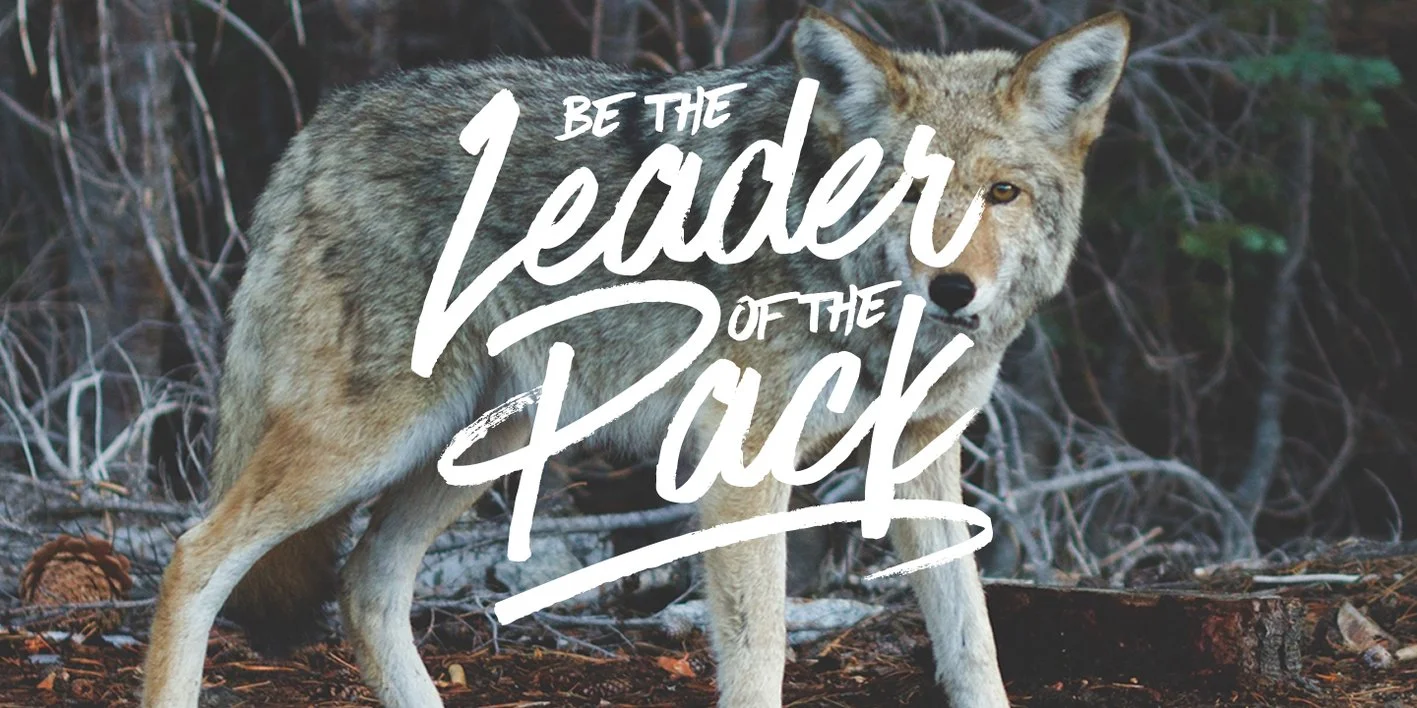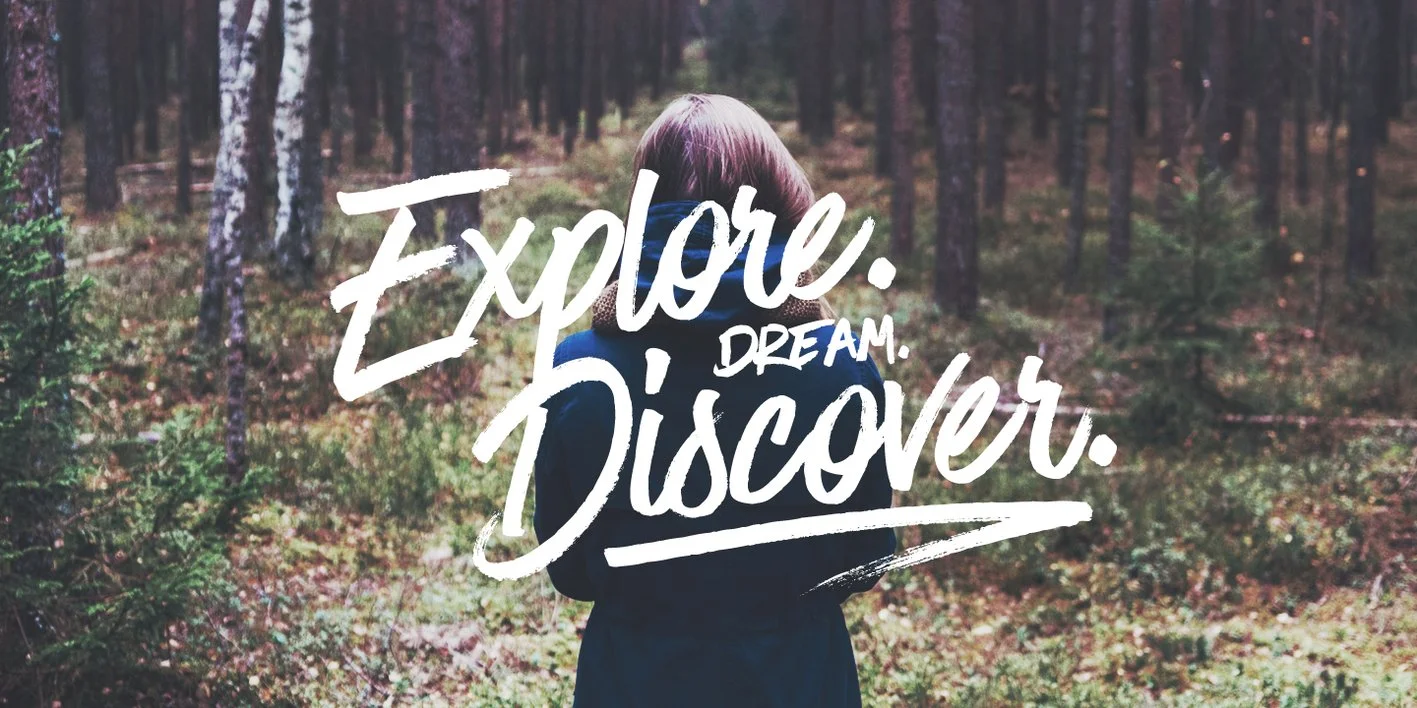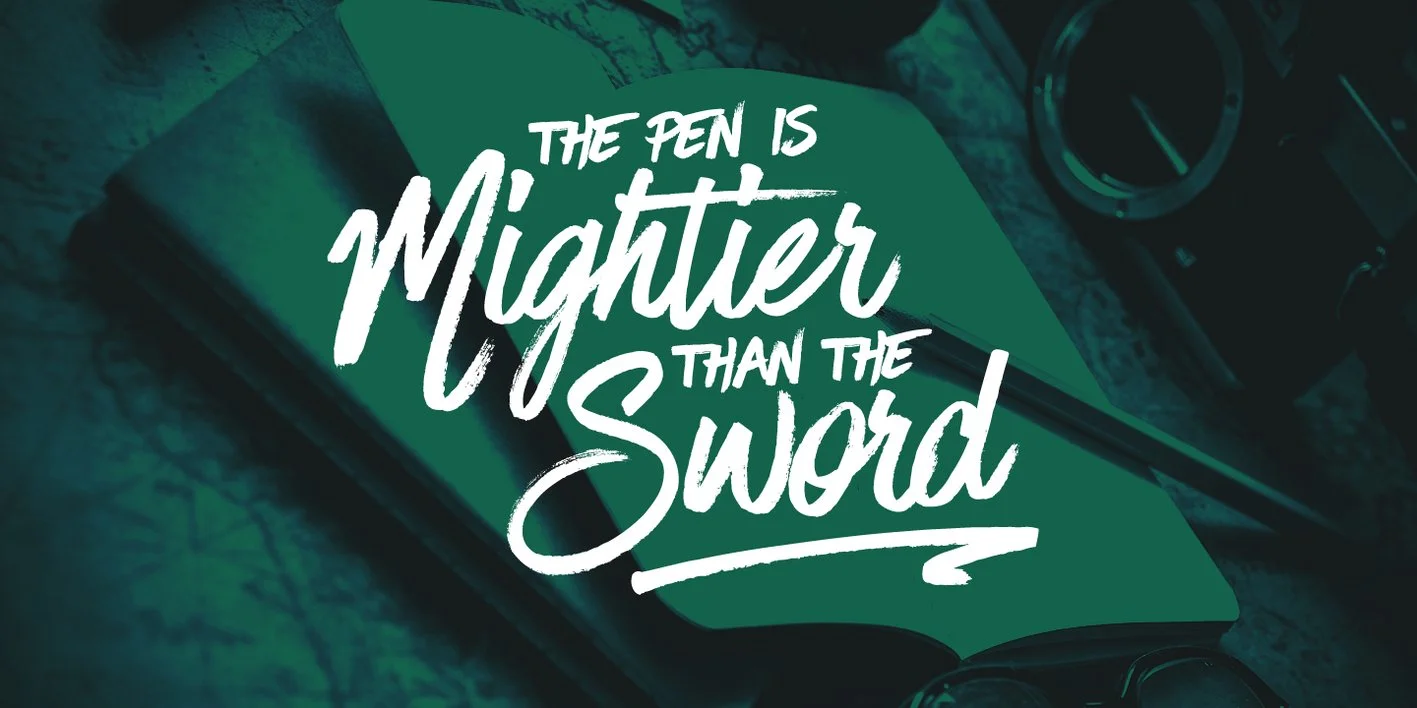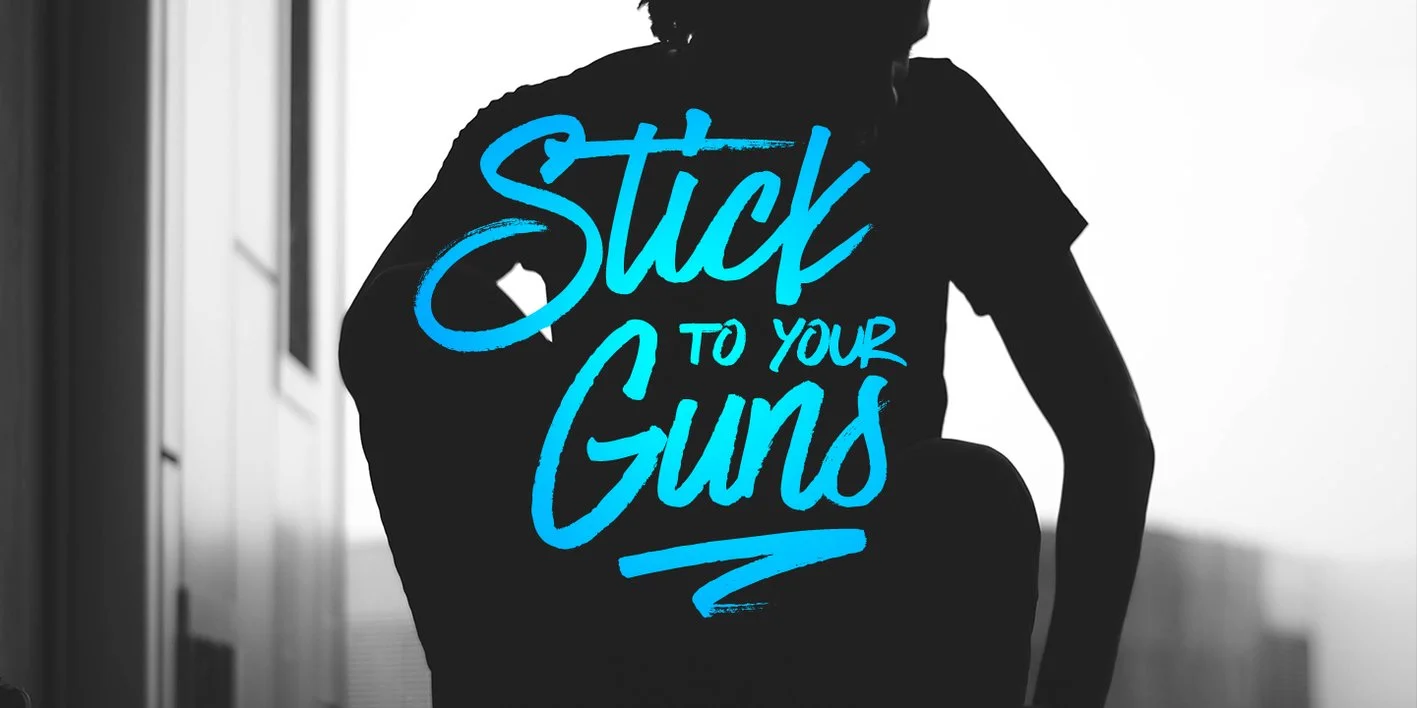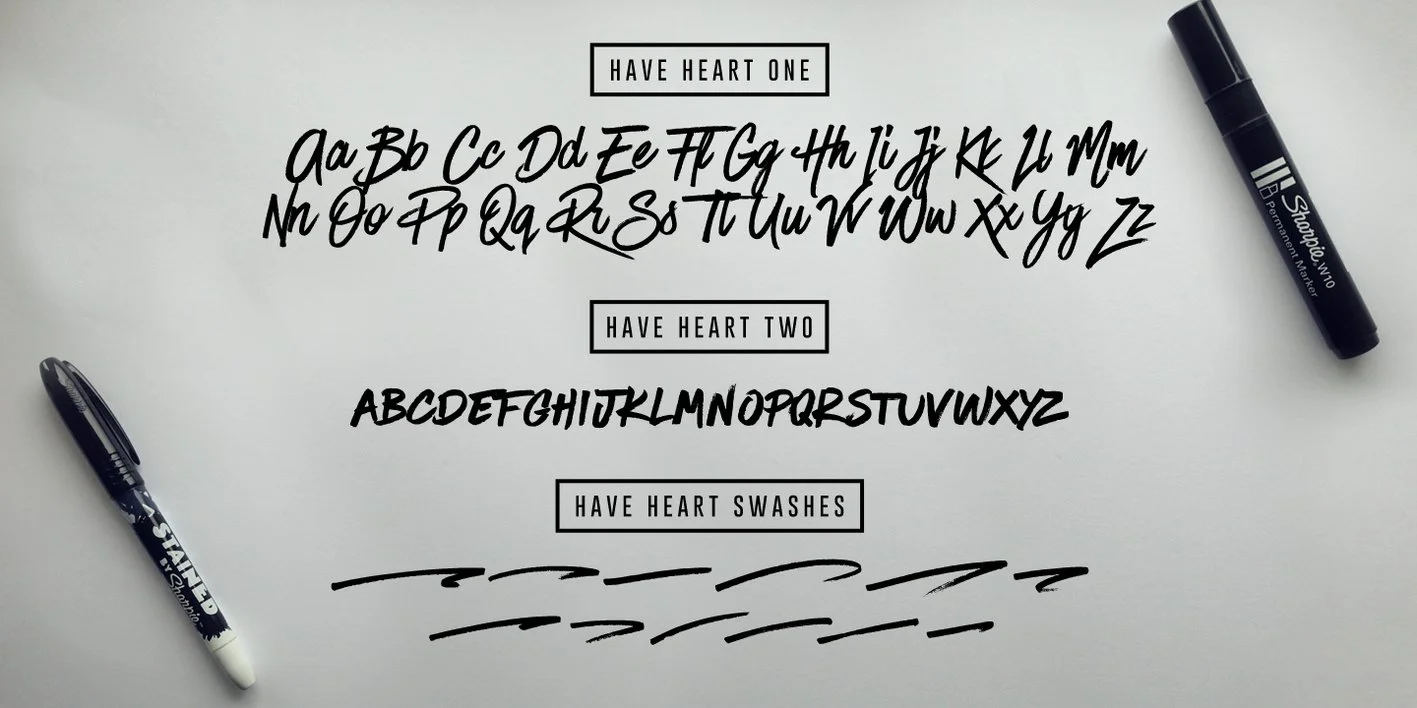
Have H Free Font Font
A good typeface communicates tone before a single word is read. Have H Free achieves this through controlled contrast that rewards close inspection. The typeface brings a versatile sensibility to a broad range of creative disciplines, with consistent type colour across continuous text that holds up whether the work is print-first or screen-first.
In practice, Have H Free proves particularly effective for packaging design, annual reports, advertising campaigns, web design, social media graphics. Designers reaching for it find that the type decisions feel resolved rather than laboured — a useful quality when client timelines are tight.
The range of applications extends to poster creation, product labels, brand identity systems, logo design. That breadth is deliberate: the proportions and spacing were stress-tested across a wide range of mock briefs before the typeface was finalised.
Art directors commissioning type-led campaigns find Have H Free a reliable choice for projects that demand both personality and restraint. The design avoids the self-conscious quirkiness that dates quickly, settling instead for considered distinctiveness that holds up over time.